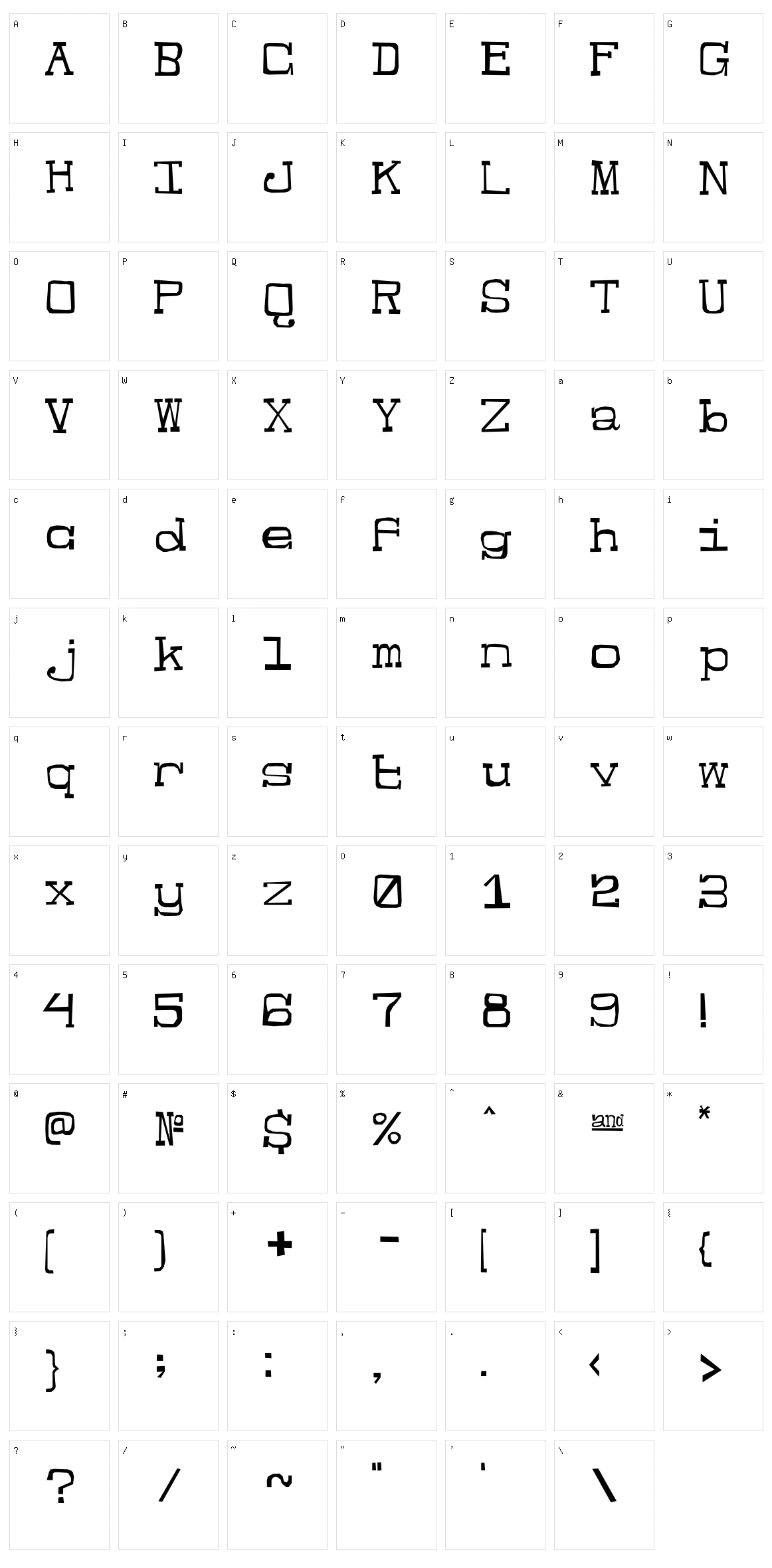
The free font Jester is carefully designed by Winter Design Studio, showcasing a thoughtful balance of creativity and usability and falls under the Cartoon font style. When you download the ZIP file, it contains only 14.01 KB of font files, making it lightweight and quick to download. Please review the license details below to understand permitted usage and distribution rights. If license information is not available, we recommend using this font for personal projects only or contacting the author directly for commercial usage permissions.